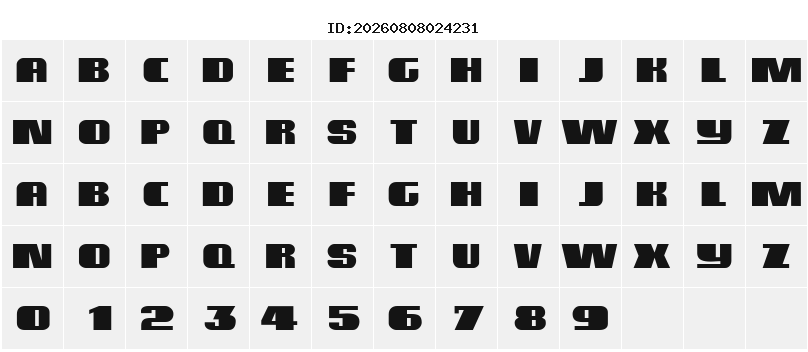
PromoteDisplay Preview
• Font Name: PromoteDisplay
• Full Font Name: PromoteDisplay
• PostScript Name: PromoteDisplay
About PromoteDisplay.ttf
PromoteDisplay.ttf is a modern, elegant sans-serif font designed for ultimate readability and visual harmony. Perfect for branding, headlines, web design, and print materials.